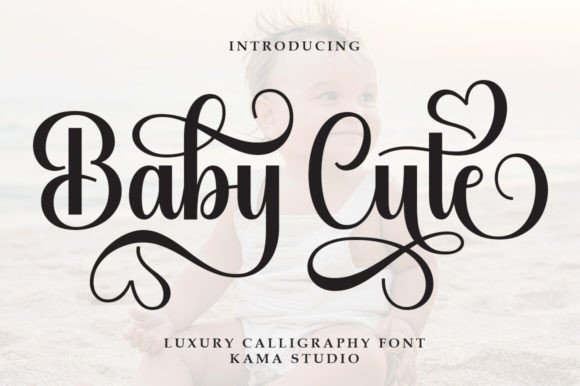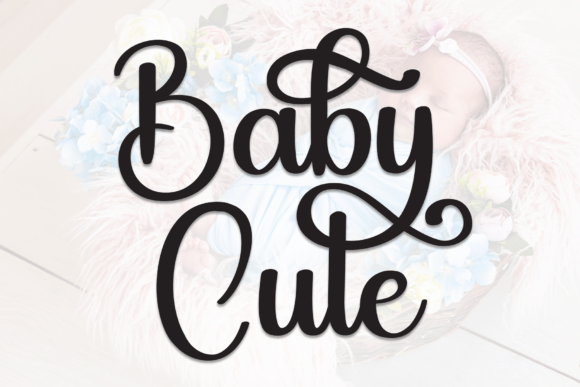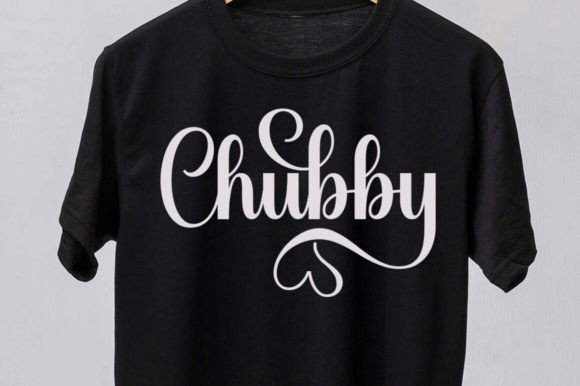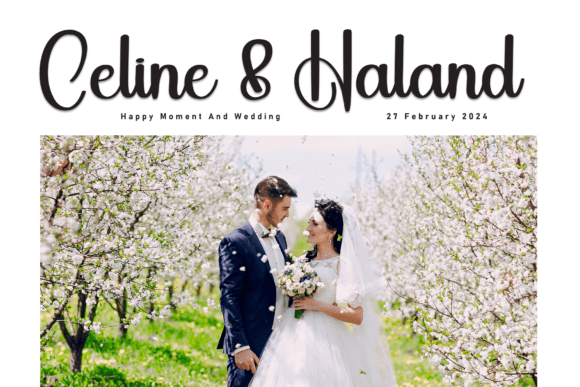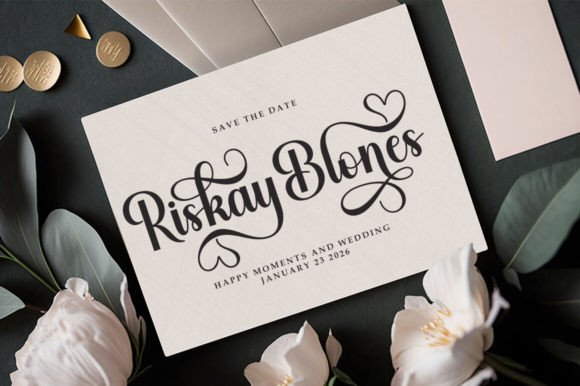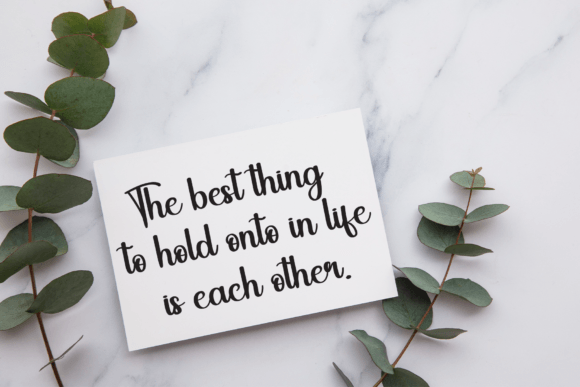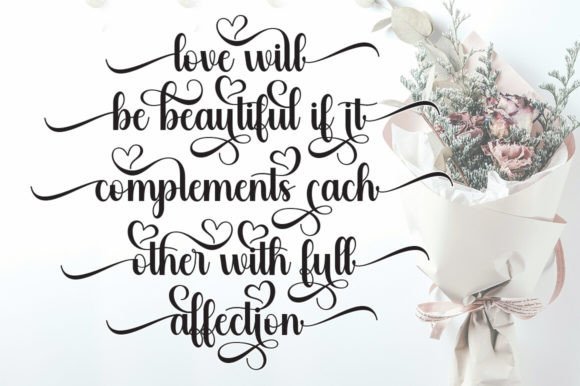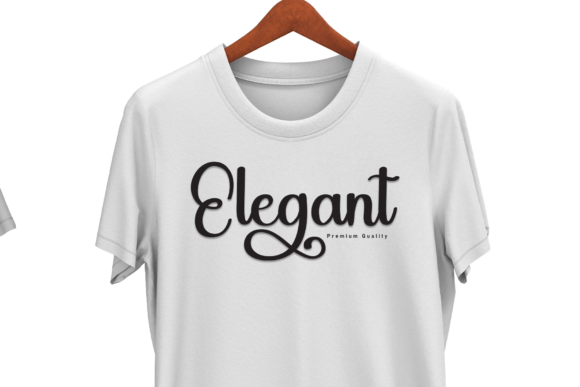
About the Baby Cute Font
The Baby Cute Font offers a perfect balance of form and function for your design needs. Baby Cute is a sweet and friendly handwritten font. Cute and versatile, this font is ideal for writing wedding invitations, cards, or any other design that might need a fun touch!
Its playful, rounded forms make it perfect for children’s books, branding for sweet treats, or packaging for toys. It also works well in short, impactful headlines and social media graphics where its friendly nature shines. However, avoid using Baby Cute for large blocks of text or UI elements; its informal style isn’t suitable for extended readability.
Pairing Baby Cute with a clean sans-serif like Open Sans for body copy creates a balanced contrast. For a more sophisticated feel, consider pairing it with a delicate serif like Lora. These pairings allow Baby Cute’s charm to stand out without overwhelming the overall design.
The font’s core personality is undeniably friendly and approachable, conveying a sense of warmth and lightheartedness. It’s best suited for projects targeting a young or youthful audience, emphasizing happiness and approachability.